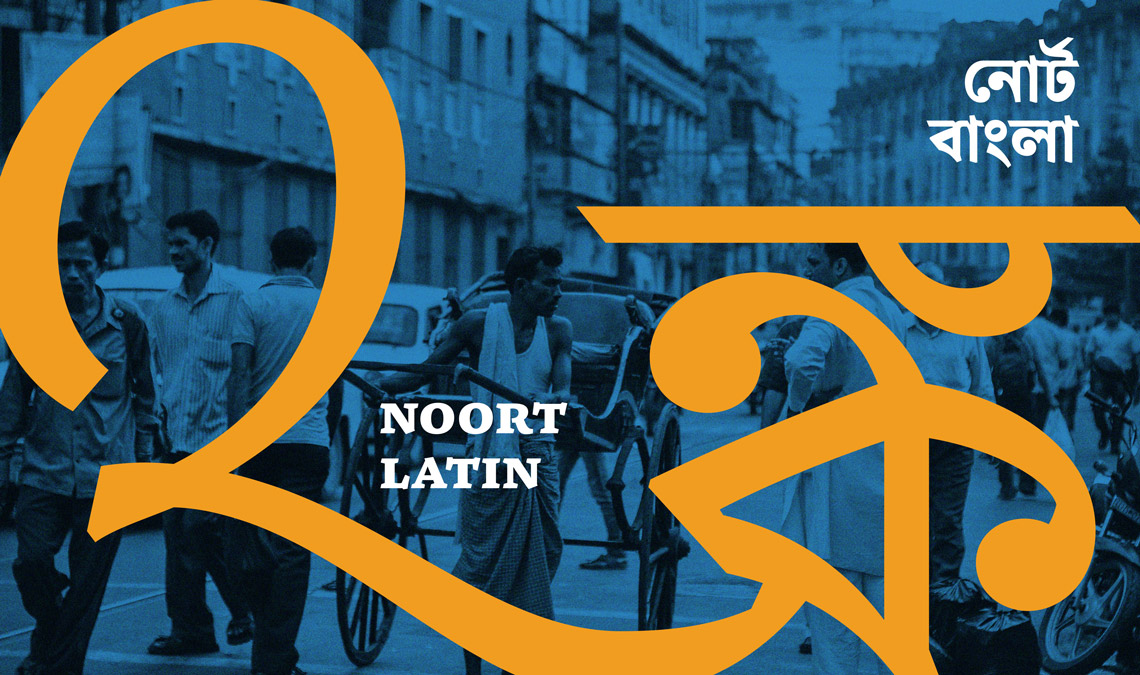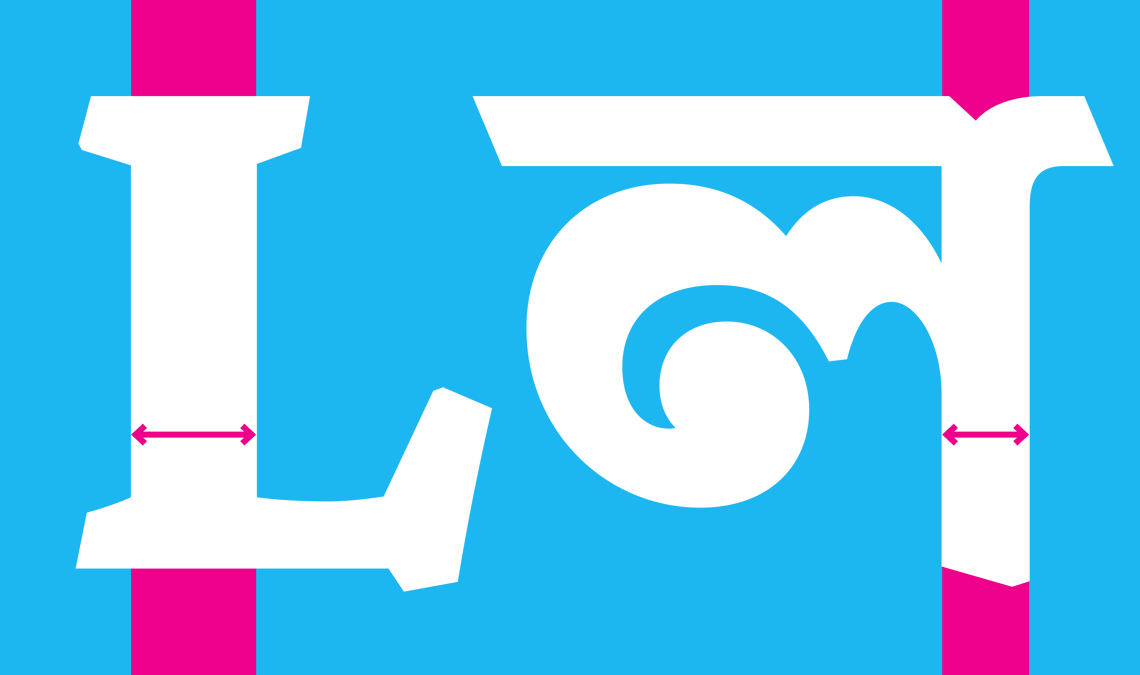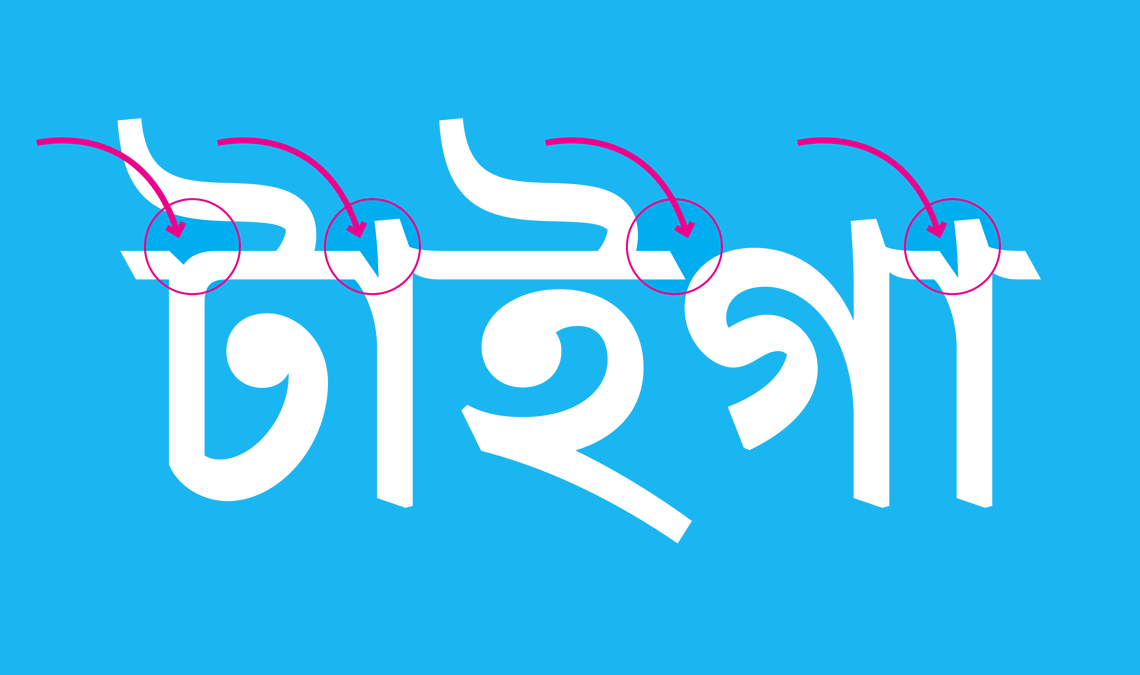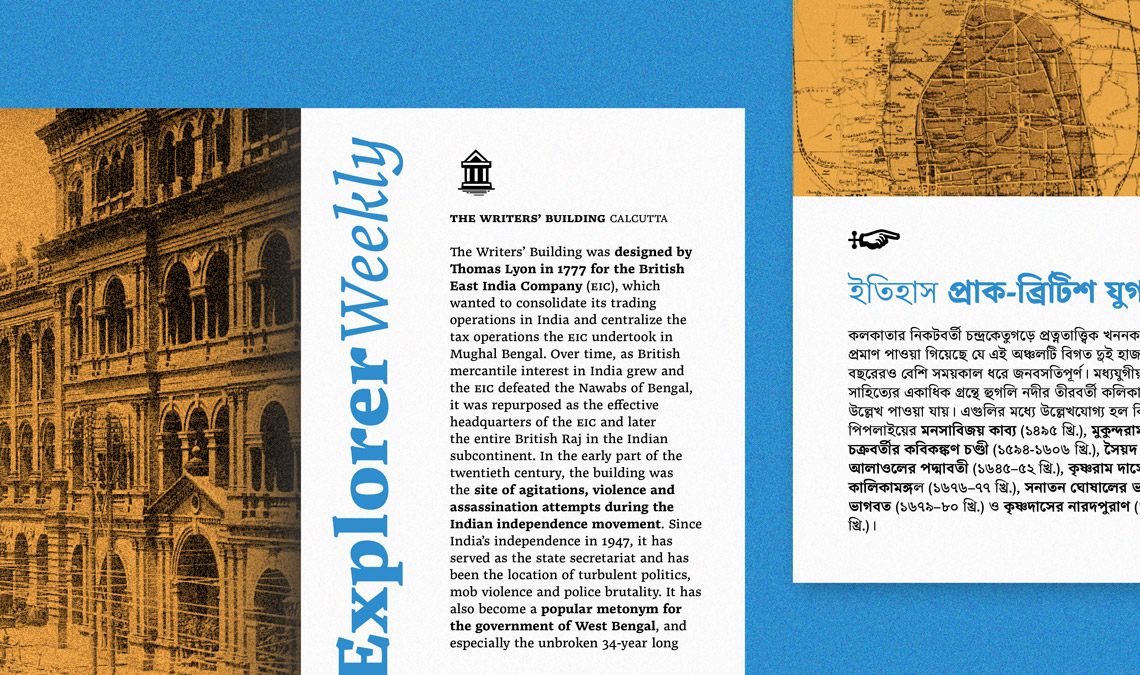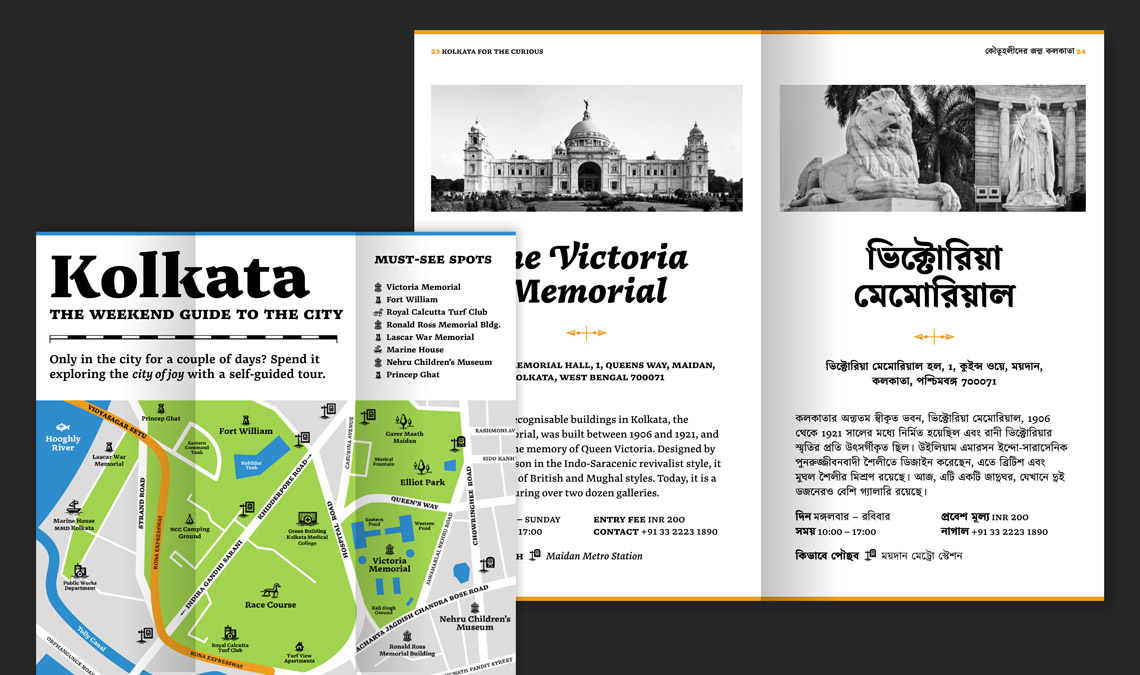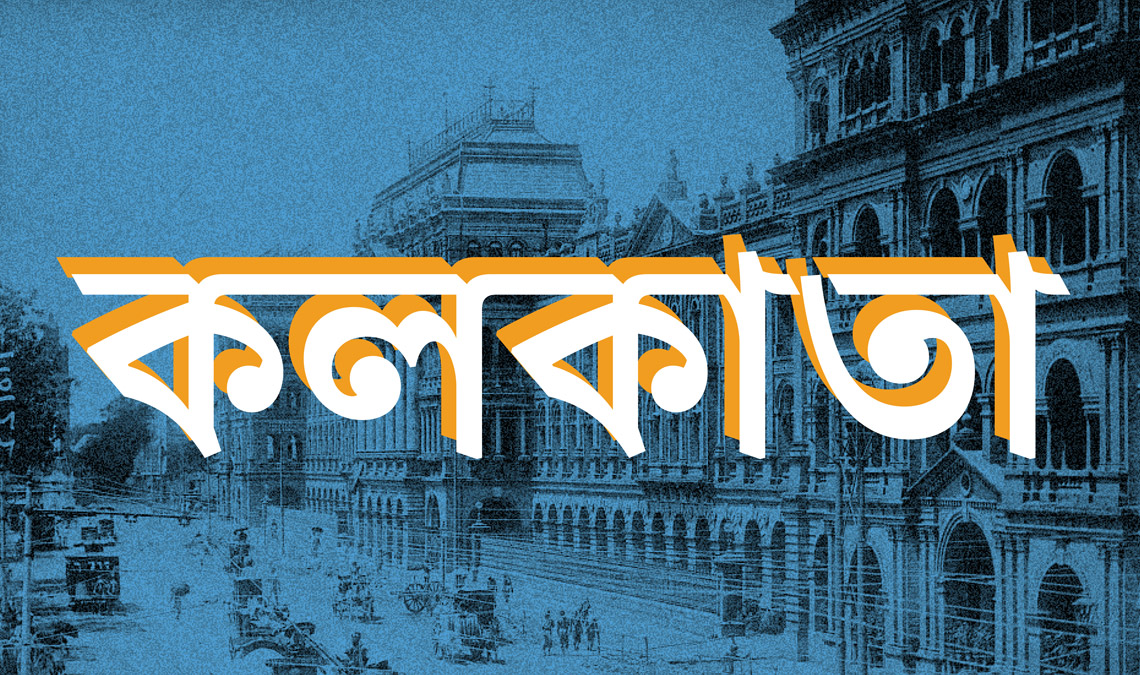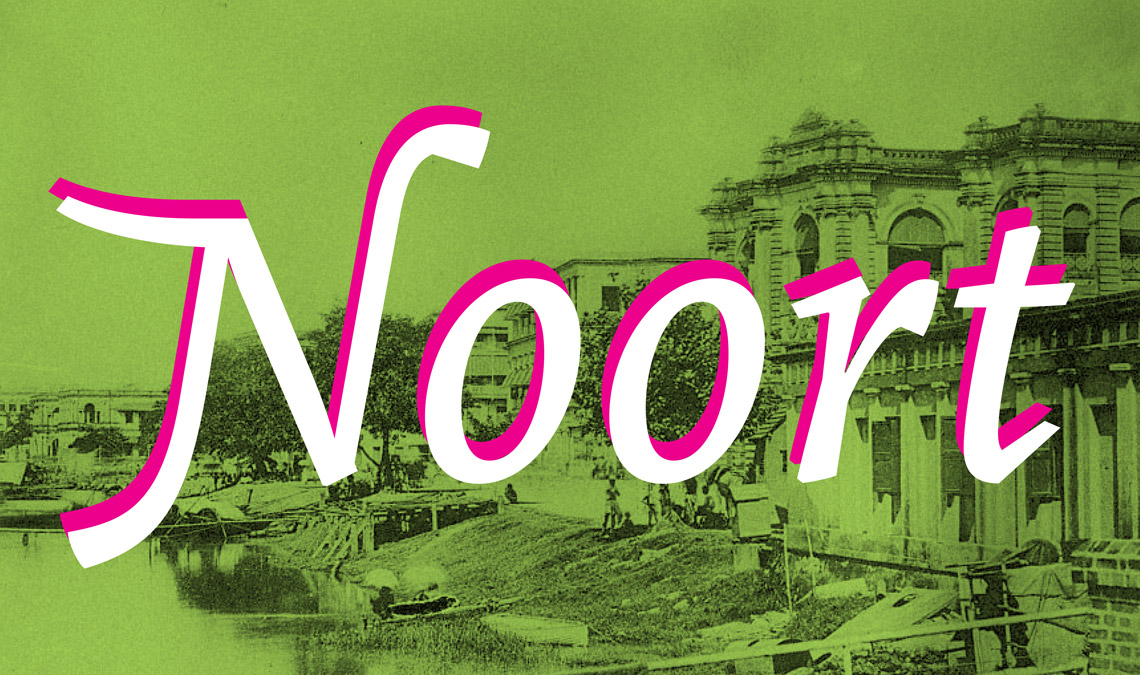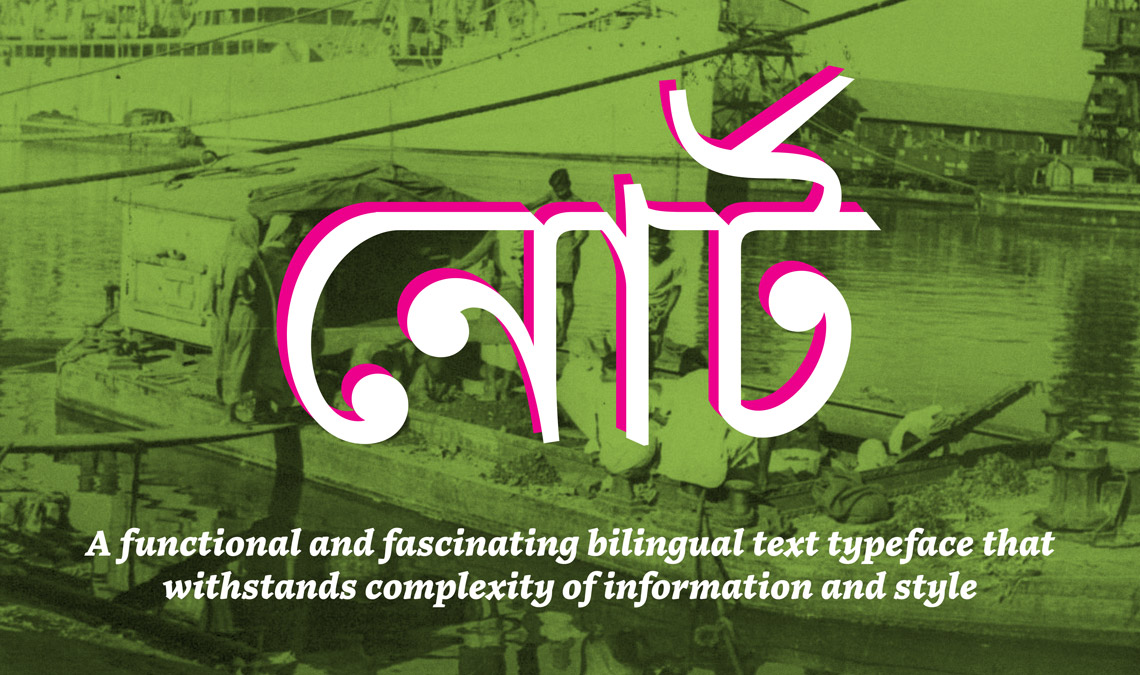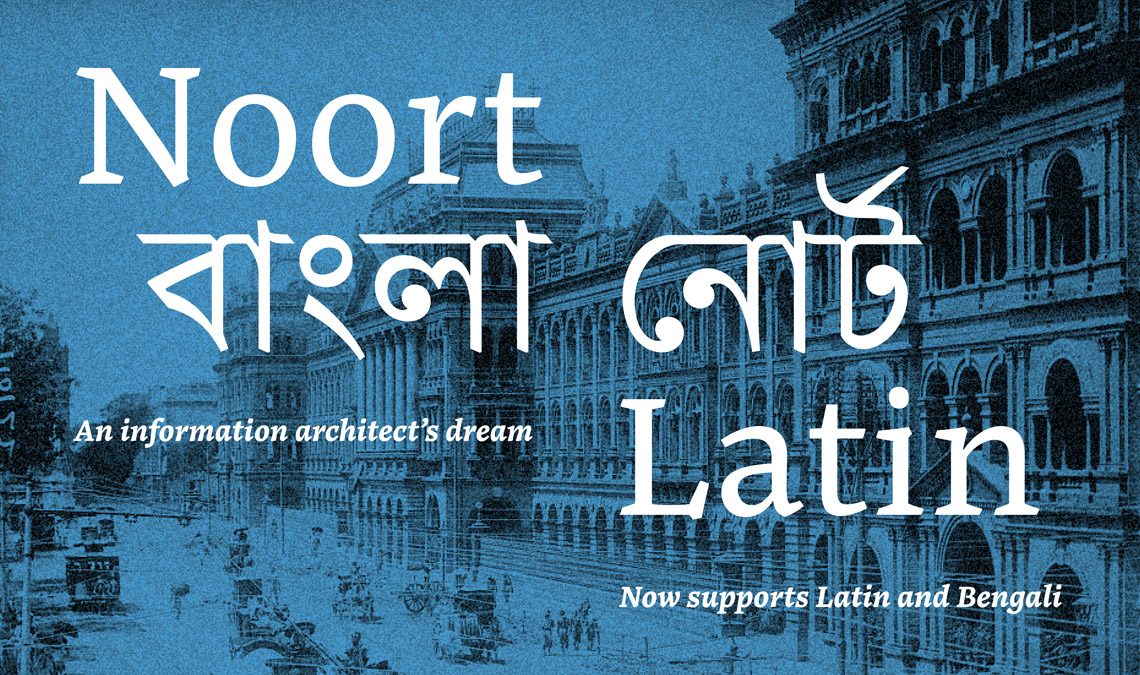
Making of Noort Bengali
Years in the making, Juan Bruce’s Noort Bengali is a dynamic and energetic Bengali text typeface, and TypeTogether’s very first step in supporting this script. Read on to learn how Noort Latin got a Bengali companion and what to expect from this dual-script design.
The origin story
Chilean designer Juan Bruce has been associated with TypeTogether since 2016, when he was selected for the second Typeface Publishing Incentive Programme (now known as the Gerard Unger Scholarship). Next year saw the release of his typeface Noort, a serif font family influenced by 17th century Dutch maps, which went on to win the TDC Award of Excellence. Since then he has added a display weight to the family and a suite of cartographic icons, but this is Noort’s largest extension yet — a companion Bengali typeface family, which also happens to be TypeTogether’s first foray into the script.
Noort has its beginnings in Juan’s time at Reading University’s MA in Typeface Design programme. He imagined it as a multiscript project from the start, with Latin, Greek, and Bengali components. Juan was attracted to Bengali, a script he had been unfamiliar with until then, because of its unique texture. Bengali is one of the most popular scripts in the Indian subcontinent and is used by languages spoken by over a quarter billion speakers in the region, as well as expats elsewhere in the world. [We published an interview with Juan about Noort, his background, processes, and much more some time ago].
Kolkata, West Bengal, India. Photo by Ujjwal Jajoo, 2020.
Unlike Latin, its letterforms have a large number of diagonals with different starting and ending points, something that caught Juan’s eye. This is complemented by vertical stems that hang from a horizontal headline. The multidirectionality of strokes, matched with the flourishes in the letterforms and their traditional ball-like terminals, creates a lively interplay of black and white to which Juan was immediately attracted. While at Reading he not only sowed the seeds for an upright Bengali design with Noort’s DNA, but also experimented with a cursive counterpart which sought to capture the rhythm of handwriting in typographic form.
After the drawings of Noort Bengali fell into place, there was still much to be done to make the typeface functional. Indic scripts need a cooperative approach to drawing and devising OpenType features to ensure that a typeface is compactly made and also meets the rigours of typesetting. So Noort Bengali was completed in a truly collaborative fashion, with engineering support for Bengali from TypeTogether’s Pooja Saxena. Working across time zones (Juan and Pooja live nine hours apart), especially during a pandemic, was challenging but they persevered and couldn’t be happier with the result.
Speaking together
Juan’s approach for this design was to harmonize the two scripts while maintaining a degree of independence from each other in order to honour their different origins, cultures, and history. The Bengali does not try to replicate the style of the Latin, but instead picks up on the influence of the hand in the design and interprets that using its own visual vocabulary. Noort Bengali’s interrupted headline is a nod to calligraphy, lends the design an active texture, and echoes the design of its Latin counterpart.
The most challenging aspects of harmonising Latin and Bengali within Noort’s overall design was weight matching. Stroke thickness is not transferable between Latin and Bengali because shapes are more complex in the latter. This makes each Bangali letter busier, and if one were to apply the same weight to them as the Latin, the result would be heavier, awkward Bengali letterforms. This weight imbalance between the two scripts was meticulously worked out in Noort Bengali using optical adjustments and decreasing stroke weight as necessary.
The issue reared its head not only while working between scripts, but also within the same weight of the Bengali design and across all the weights together. Bengali conjuncts are more intricate than the basic conjuncts and vowels, and thus required further refinement. And the heaviest weight, the Extrabold, was a test in tuning forms and counterforms to create legible and hefty Bengali letters that retained the gestural tension that makes Noort distinctive.
A typographer’s dream
Noort Bengali contains both Bengali and Assamese letters, and comes along with the family’s Latin glyph repertoire, making it an ideal typeface family for multiscript and multilingual projects. It offers typographic finesse in Bengali thanks to a wide range of conjuncts, and specially-designed vowel signs matched according to width.
Conjuncts and vowel sign matching in Noort Bengali.
It also comes with a set of punctuation marks designed to work seamlessly with Bengali letterforms, keeping in mind their headline, as well as marks below and above the primary character. Whether in books or magazines, in print or on screens, the text weights of Noort can bring subtle drama to long passages, while its heavier weights are showstoppers in display sizes.
Latin versus Bengali punctuation.
Noort can be an asset in the tool belt of the seasoned information designer, one who is not afraid of using letterforms with flair and personality to tell a complex and compelling story. The analogue charm of Noort, whether in Latin or in Bengali, creates an engaging reading environment and leaves a memorable impact. After all, simply because an overwhelming amount of information has to be conveyed, one needn’t do away with warmth.
Noort Bengali numerals.
Five matched weights allow for the designer to build deep hierarchies. Niceties like proportional and tabular Bengali numerals and a large collection of cartographic and wayfinding icons are means to achieve sophisticated results. Luckily we have coded the icons in such a way to make them an automatic substitution. As with the example below, just type the name of the icon and choose the alternate to replace the word with the stylised icon.
Noort icon substitution.